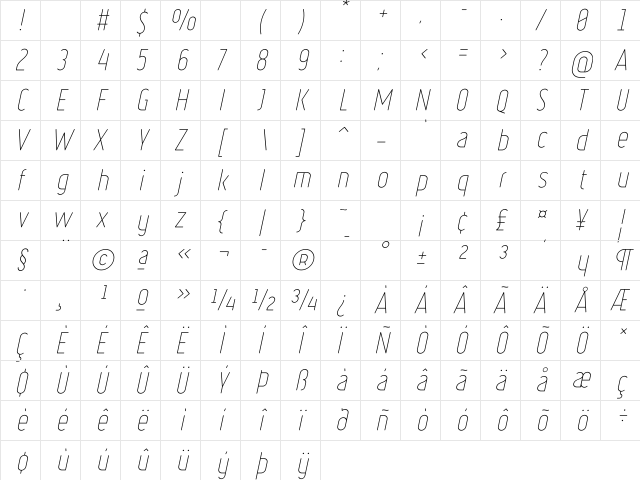
Ruler Volume Light Regular
| Foundry | Levi Szekeres |
| Designer | Levi Szekeres |
Design Context for Ruler Volume Light Typeface
Ruler Volume Light is a composed and adaptable typeface that performs quietly and consistently across a wide range of design contexts. The delicate stroke weight brings airiness and refinement to layouts.